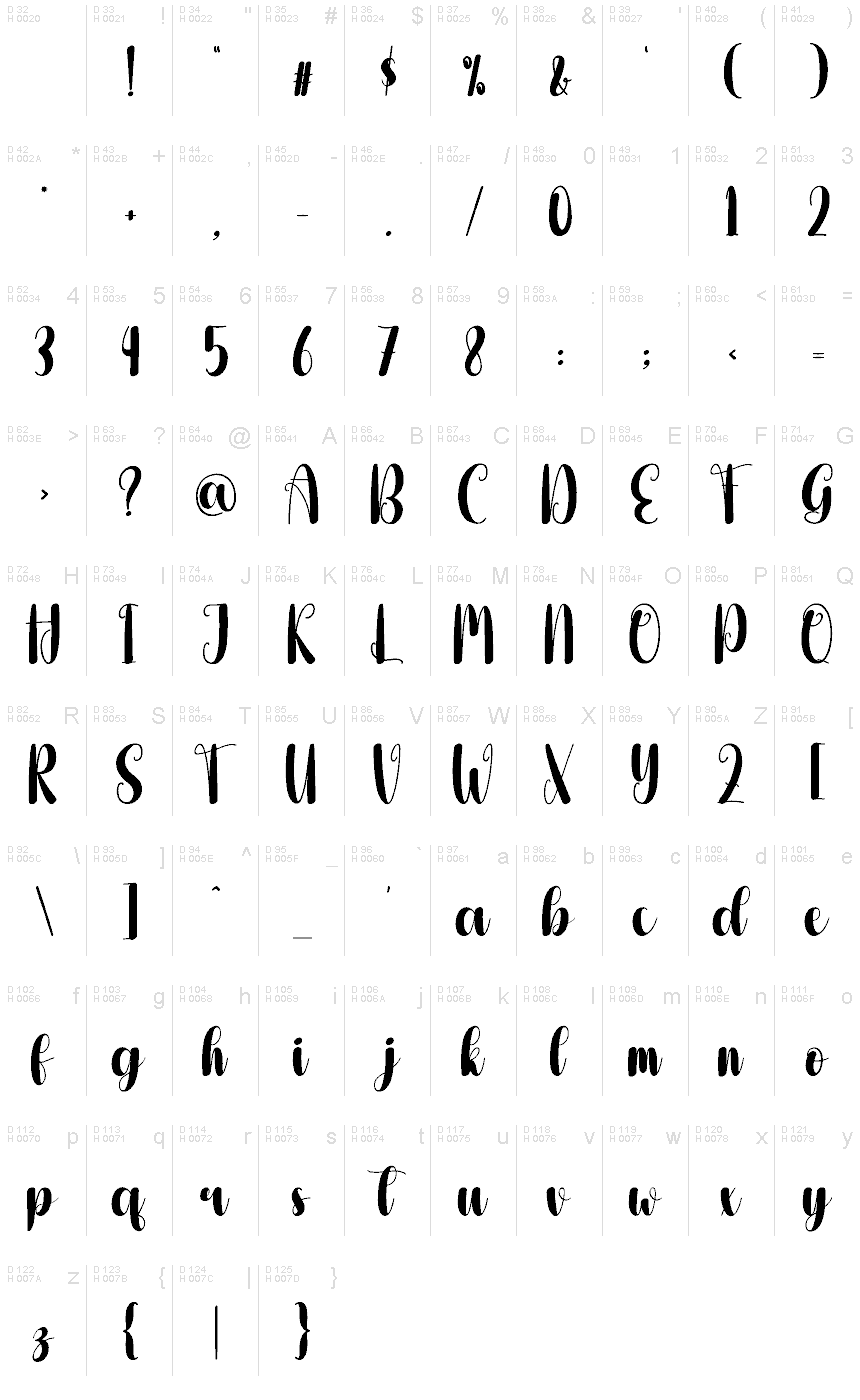
Dolphin
Dolphin font by Andi Moz is a timeless handwritten font balancing elegance and modernity. Succinctly described as graceful, the font features smooth flowing curves with an organic and expressive visual style. While simple is some aspects, the full appearance composes a professional look that will elevate any project.
Applications range from headings for blog posts, websites, and branded social media visuals to posters, blog headers, etc. The free handwritten font can also be used for CD covers thanks to its visibility in large applications and how well it presents to audiences in important design elements.